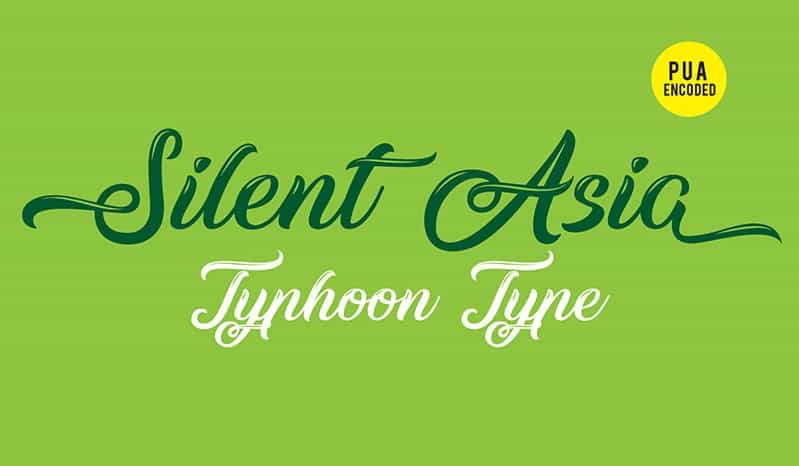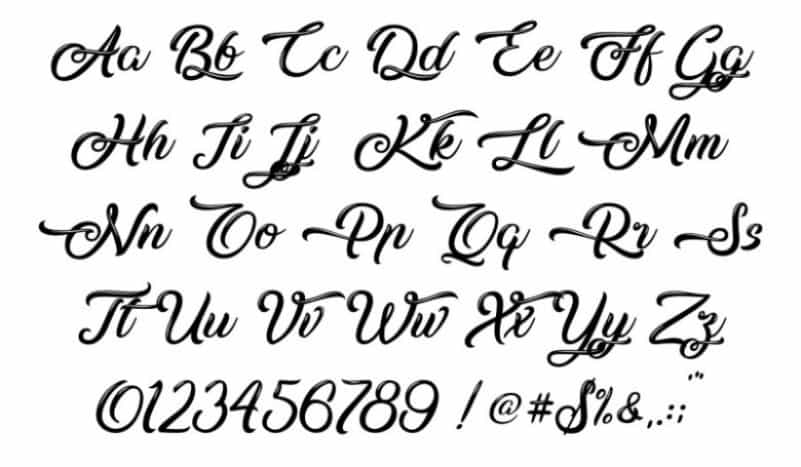
Discover Silent Asia Font, part of the Brush Calligraphy collection—a versatile and unique font perfect for adding a personal touch to your projects. Download it for free and enjoy crafting designs with style, from invitations to social media posts. This font is available exclusively for personal use, giving you the freedom to create without limits. Unlock your creativity with Silent Asia Font today!
Silent Asia Font This Font is suitable for logos, wedding designs, social media posts, advertisements, product packaging, product designs, label, photography, watermark, invitation, stationery, and any other related project..